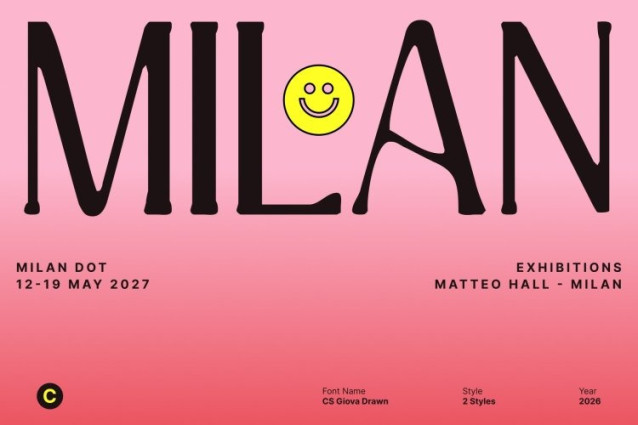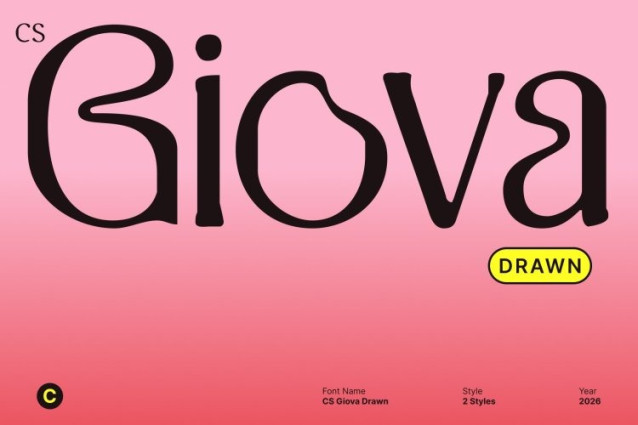
CS Giova Drawn Font
CS Giova Drawn Font This is a modern Art Nouveau display font defined by smooth organic lines and graceful movement, enhanced with a subtle hand-drawn texture. Inspired by the flowing aesthetics of classic Art Nouveau and reimagined through a contemporary lens, this font delivers an elegant yet expressive visual presence.
Organic Forms with Soft, Artistic Detail
The beauty of this font lies in its organic letterforms and fluid transitions. Each character is shaped with smooth, natural curves and softened edges, creating a harmonious rhythm that feels elegant and handcrafted. The drawn texture introduces gentle imperfections that add depth and personality, allowing the font to stand out while maintaining clarity and balance in display use.
Fresh Expression with Modern Sensibility
Blending decorative Art Nouveau elegance with modern refinement, this font feels timeless yet current. Its flowing structure communicates creativity and sophistication, while the clean execution keeps it versatile for contemporary design. The hand-drawn effect softens the overall look, making the font expressive without feeling heavy or overly ornamental.
Perfect for Editorials, Luxury Branding, and Fashion
Designed for high-impact and sophisticated applications, this font is ideal for editorials, luxury branding, fashion campaigns, packaging, and premium visual identities. Its elegant display style and artistic texture elevate headlines and key visuals with graceful movement, modern beauty, and refined character.